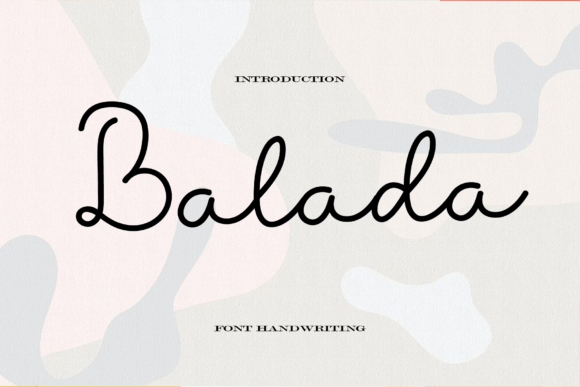
A Symphony of Beauty: Introducing Balada Font, A Script Font Family That Will Elevate Your Designs With Timeless Elegance
Unleash the magic of Balada, the exquisite script font family that exudes charm and sophistication. Designed with a keen eye for detail, Balada is a treasure trove of elegance and beauty, meticulously crafted to bring your creative visions to life. Immerse yourself in a world of timeless aesthetics as Balada transforms your designs into masterpieces.
Balada's enchanting script mimics the graceful flow of a handwritten letter, evoking a sense of intimacy and authenticity. Its elegant curves and refined serifs dance across the page, creating a visual symphony that captivates the eye. With Balada, your words take on a life of their own, whispering stories of love, joy, and wonder.
Whether you're crafting wedding invitations, pouring your heart out in heartfelt letters, or designing captivating logos, Balada is your perfect companion. Its versatility knows no bounds, adapting effortlessly to a myriad of design styles and projects. From classic and traditional to modern and chic, Balada seamlessly blends into your creative realm, enhancing your designs with a touch of sophistication.
Experience the joy of creating with Balada, a font family that ignites your imagination and sets your creativity ablaze. Its meticulously crafted characters are a testament to the passion and dedication of RR Studio, the masterminds behind this typographic wonder. Each letterform is a work of art, carefully designed to complement and enhance the overall aesthetic of your designs.
With Balada, you'll find yourself immersed in a world of boundless possibilities. Its versatility opens up a universe of creative expression, allowing you to explore new horizons and push the boundaries of your imagination. Let Balada be your guide as you embark on a journey of design excellence.